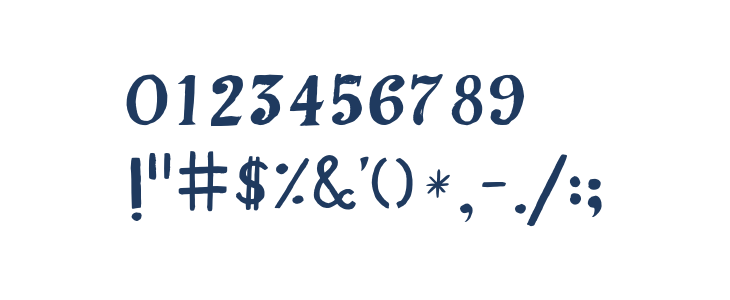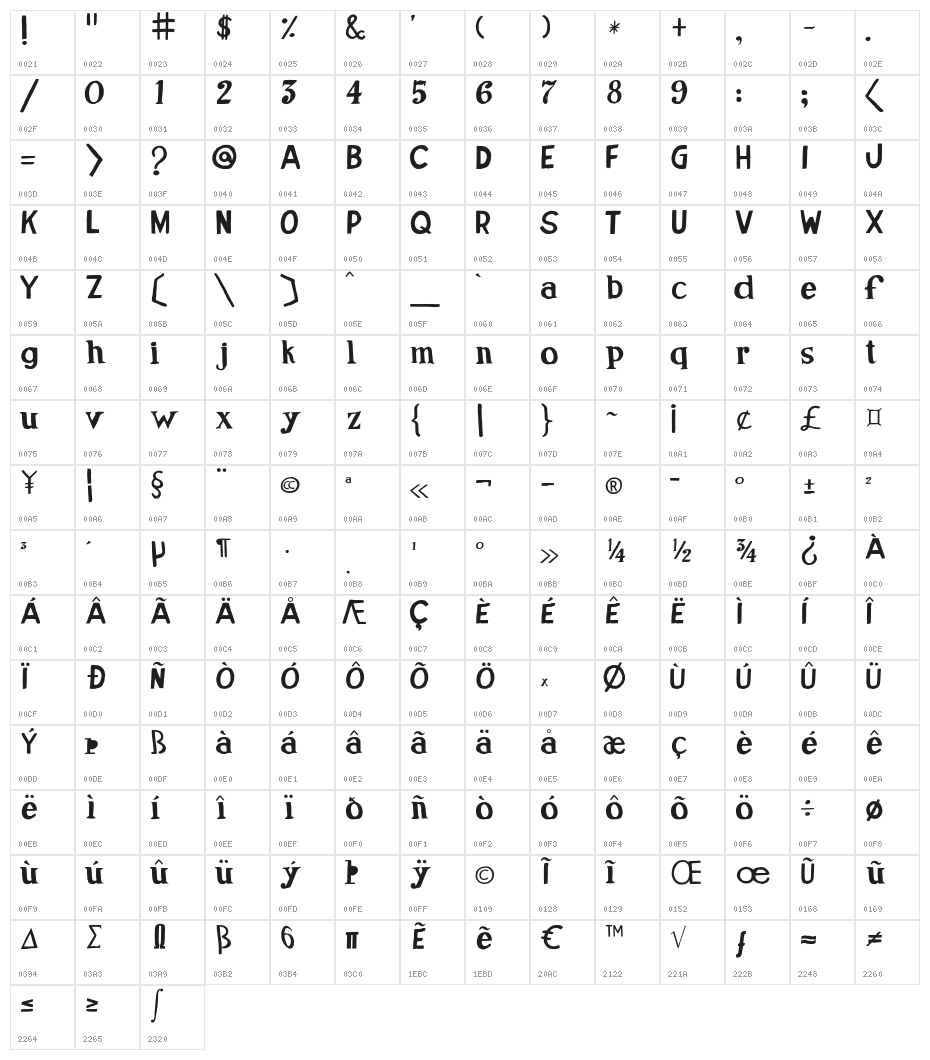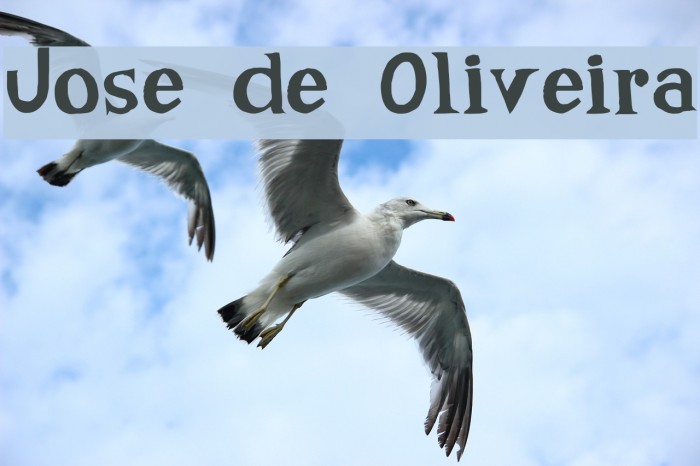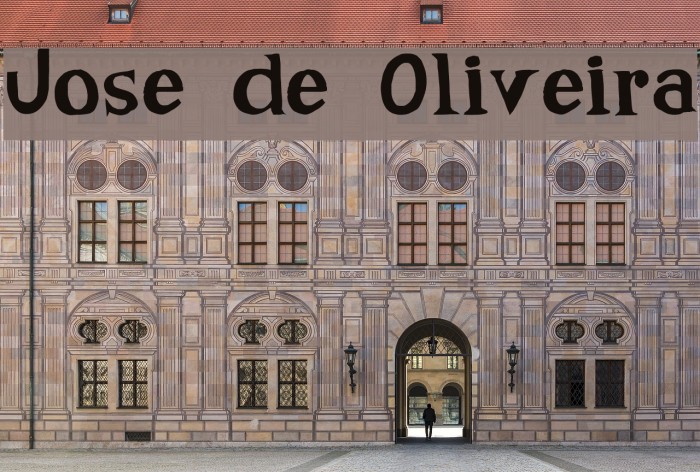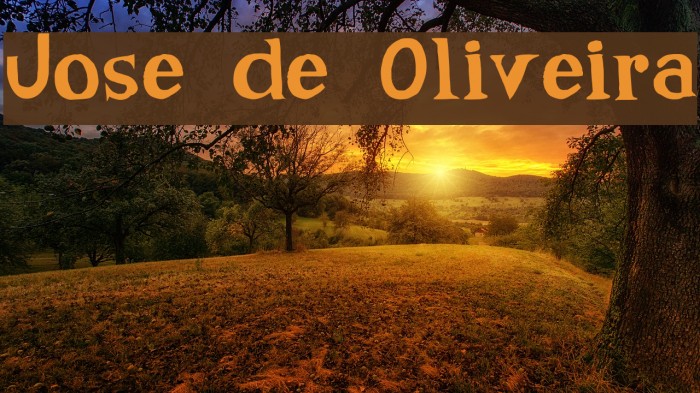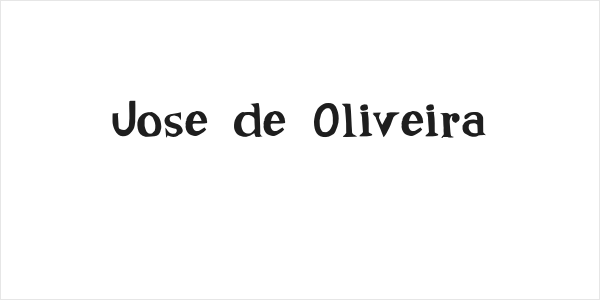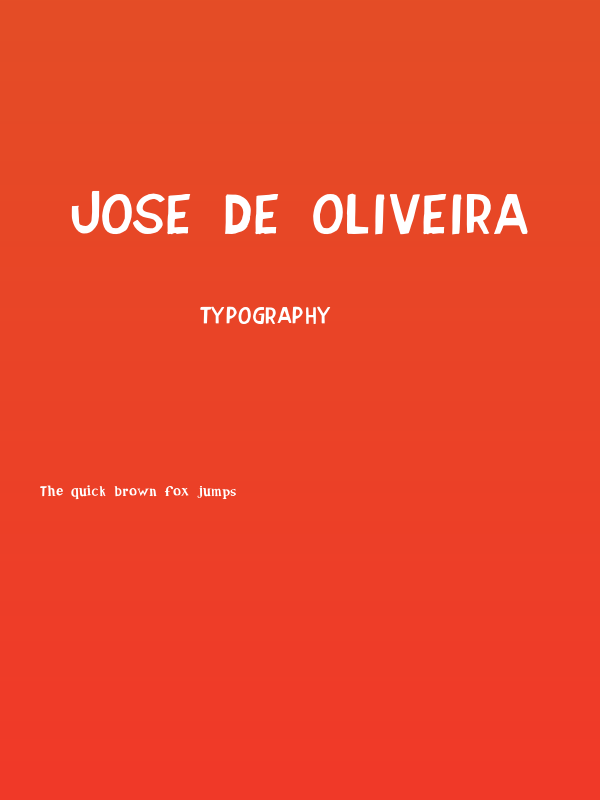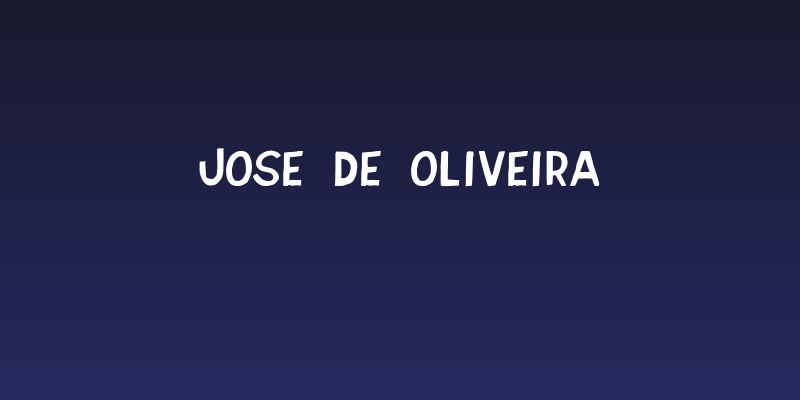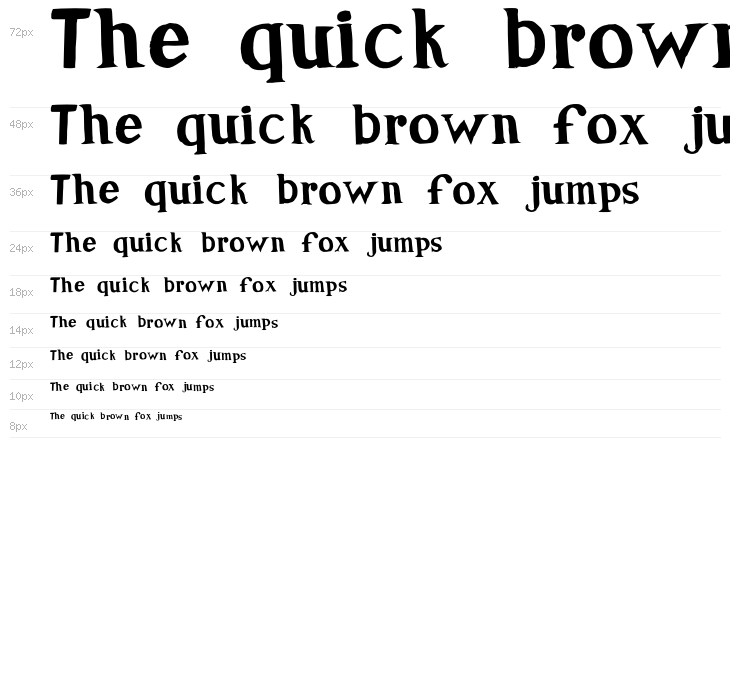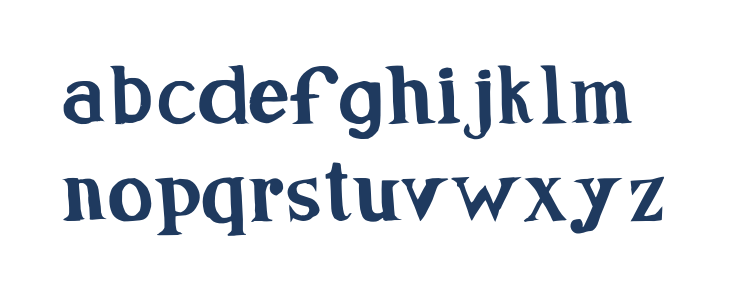
Jose de Oliveira Font
Jose de Oliveira Description
This font features a bold, hand-drawn style with a slightly irregular and organic appearance. The characters have a playful yet robust feel, with varying stroke thickness that adds a dynamic quality. The uppercase letters are strong and prominent, while the lowercase letters maintain a consistent flow, enhancing readability. Numbers and special characters follow the same bold and artistic design, making them stand out. This font is ideal for projects that require a touch of creativity and personality, such as posters, branding, and artistic designs.
| Proposed Projects | Ideal for posters, branding, artistic designs, and creative projects. |